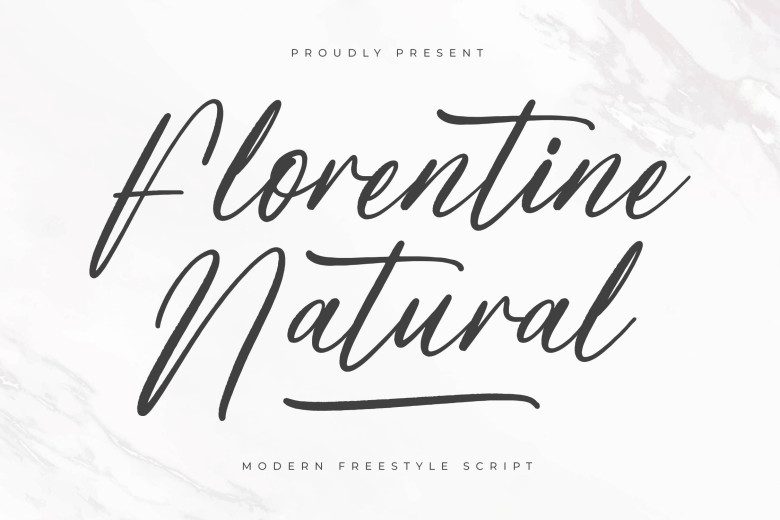
Florentine Natural Font
Meet Florentine Natural is an elegant handwritten script that consists of a sensuous urban charm that imbues the font. Due to its fluent line work and elegant style it is great for invitations, branding projects, and editorial purposes. Florentine Natural adds a human touch to various projects, creating today’s luxury with the warmth of a craft.
Florentine Natural Handwritten Font